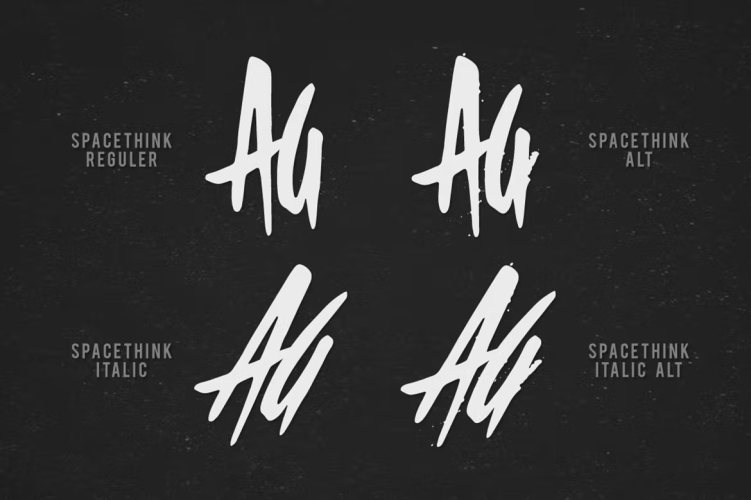
Spacethink Typeface Font
NEW UPDATE – SPACETHINK ROUGH • SPACETHINK Typeface Family.
Have 5 types of style options that can make it easier to convey the message in your design.
Use for awesome display, labeling, clothing, movie sceen, party poster, movie title, gigs, album covers, logos, and much more.
Where Spacethink Typeface Font works best
Seasonal campaigns
Spacethink Typeface Font gives a holiday or themed promotion its own look without redrawing anything; use it for the headline only.
Party and family invitations
Decorative letters set the mood before the text is read. Pair Spacethink Typeface Font with a plain sans for the practical details.
Game and video titles
Themed lettering sells the world of a game or a channel in one frame.
What kind of work does Spacethink Typeface Font suit?
It sits in the Decorative Fonts group and reads as branding, decorative, decorative fonts, display. That makes it a candidate wherever those qualities help: headings, packaging, social graphics and brand work. Set it at the size you plan to use before deciding.